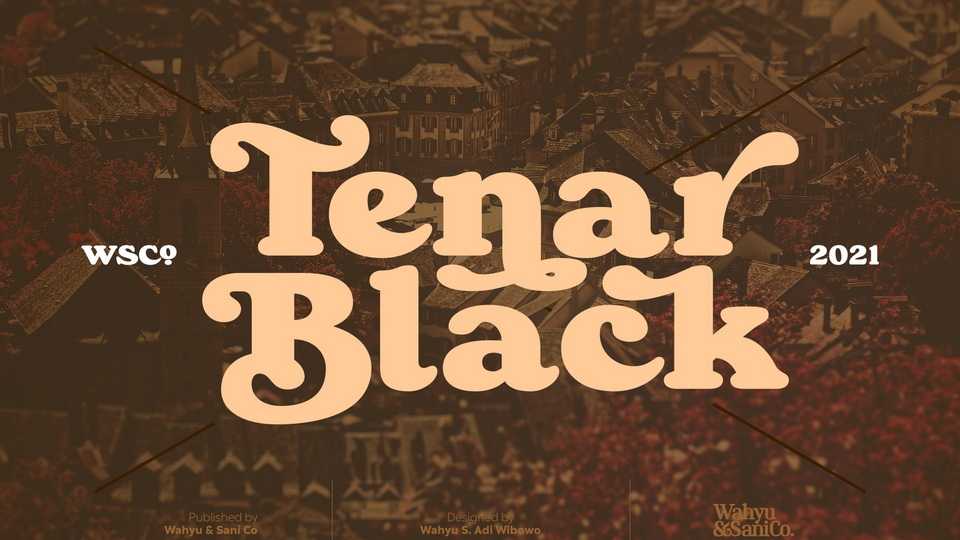
Download Tenar Black font, heavy display serif which is highly influenced by Souvenir and Cooper Black typeface. Tenar Black is ideal for high impact headlines, posters, logos and other display use.